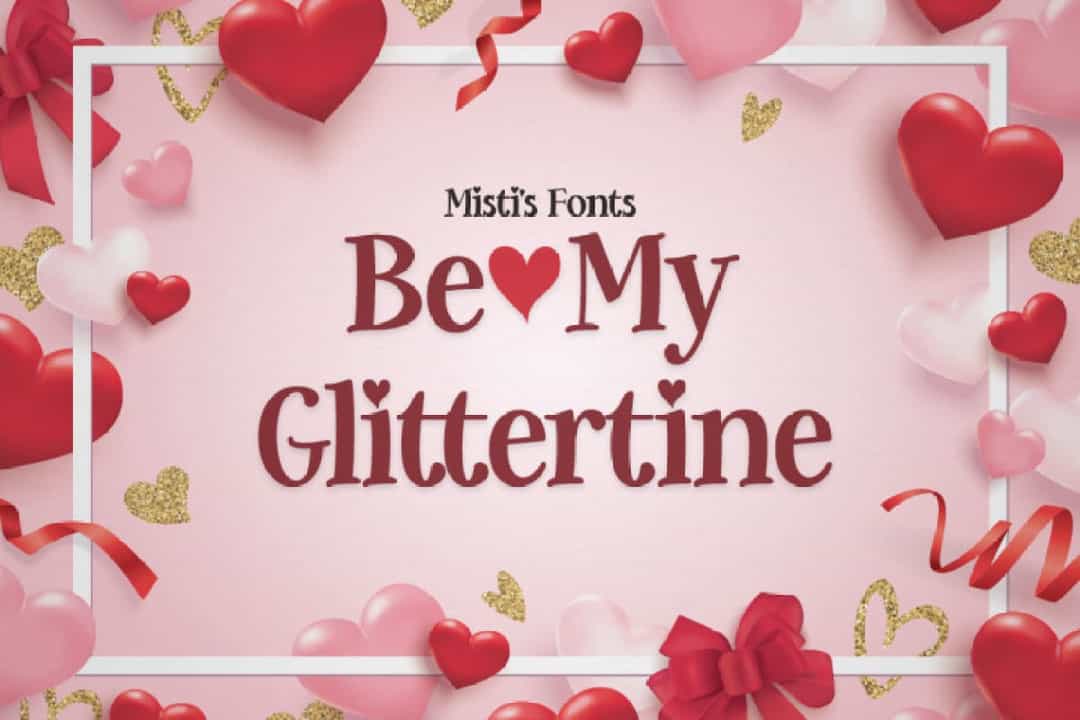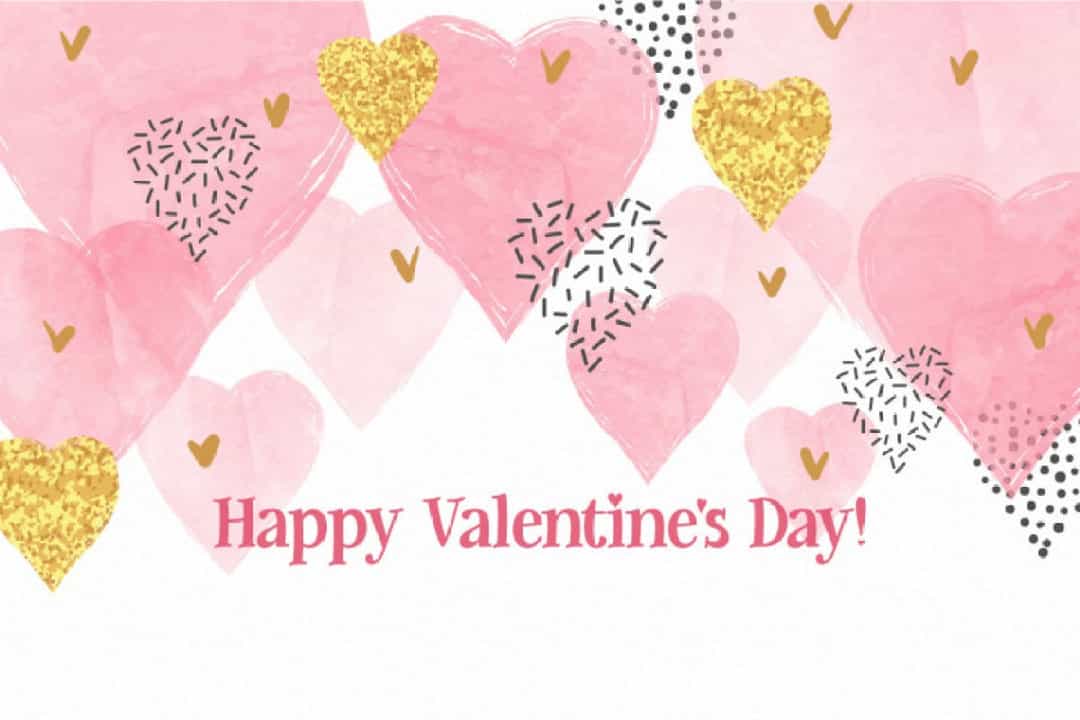
Be My Glittertine Font
Be My Glittertine is a pretty serif font that will add romance, coziness and sweet memories of the past to any Valentine’s Day design. Let its peculiar design come to the rescue; suitable for quotes Vlogger reveals logotype concepts Fashion web banners Musician song advertisement coffee shops restaurants etc.